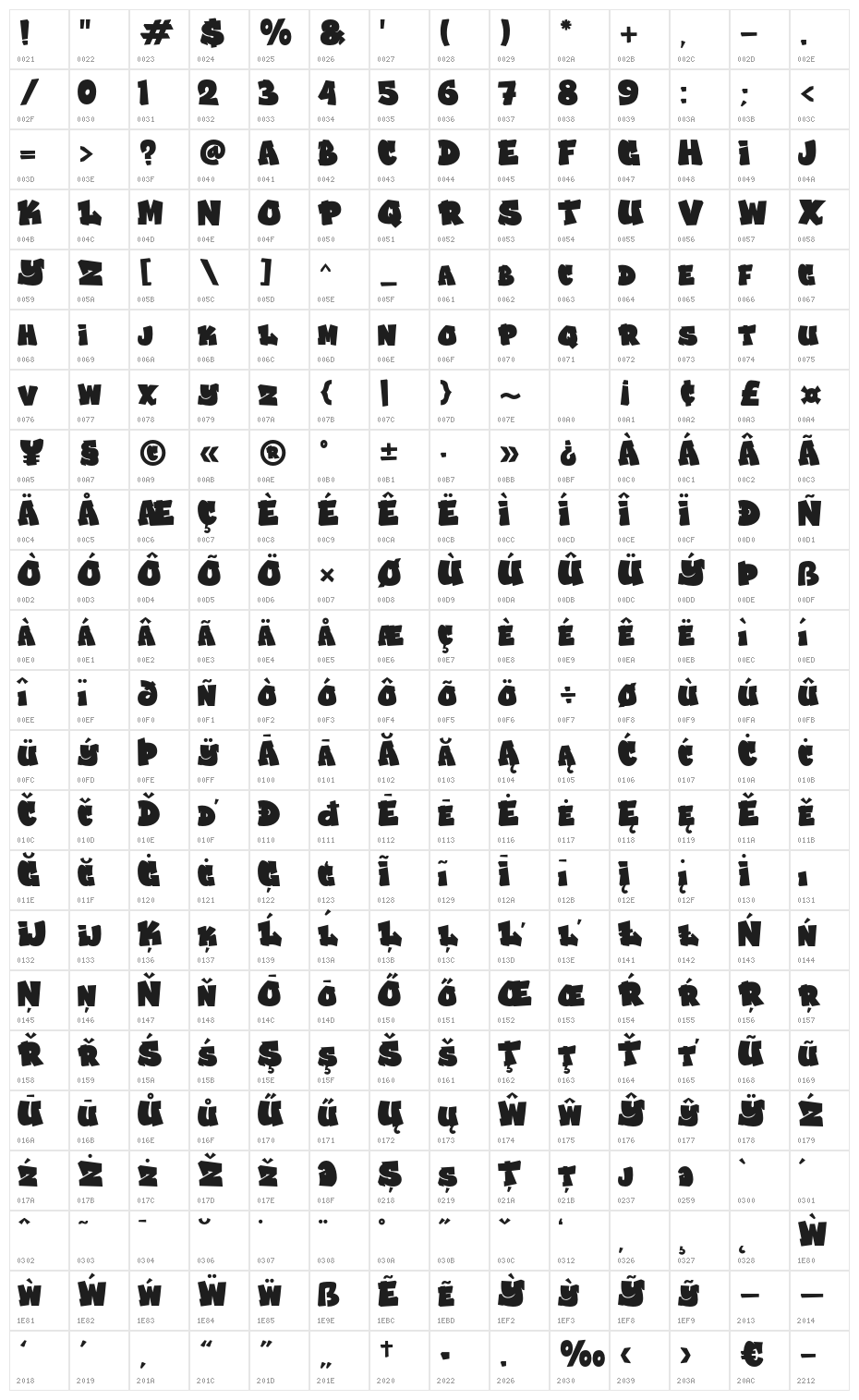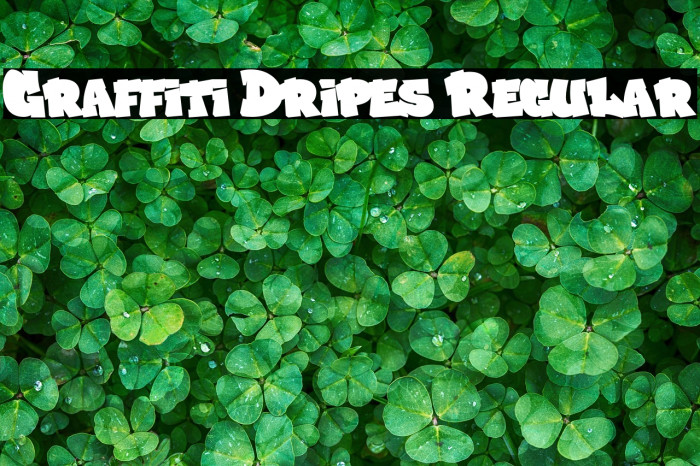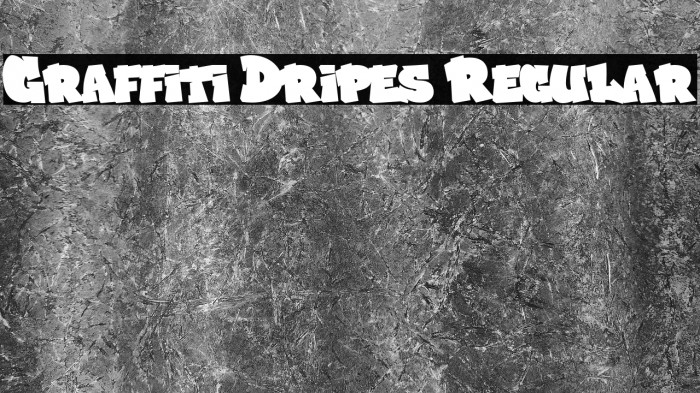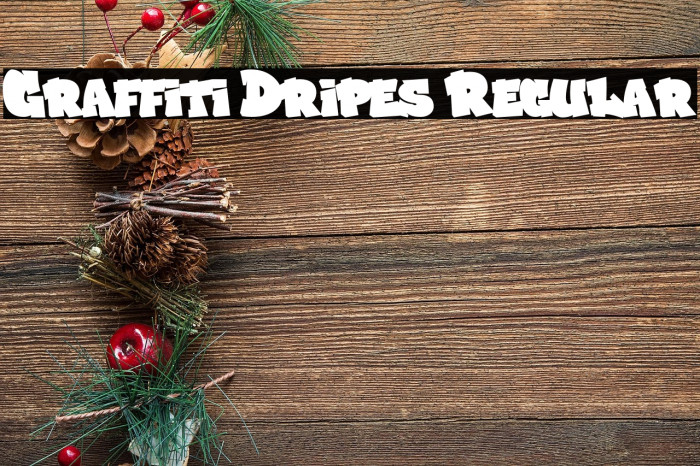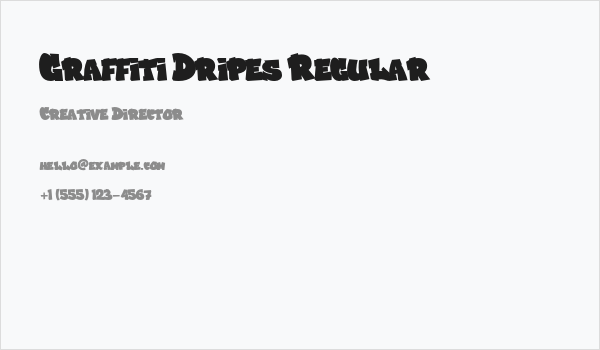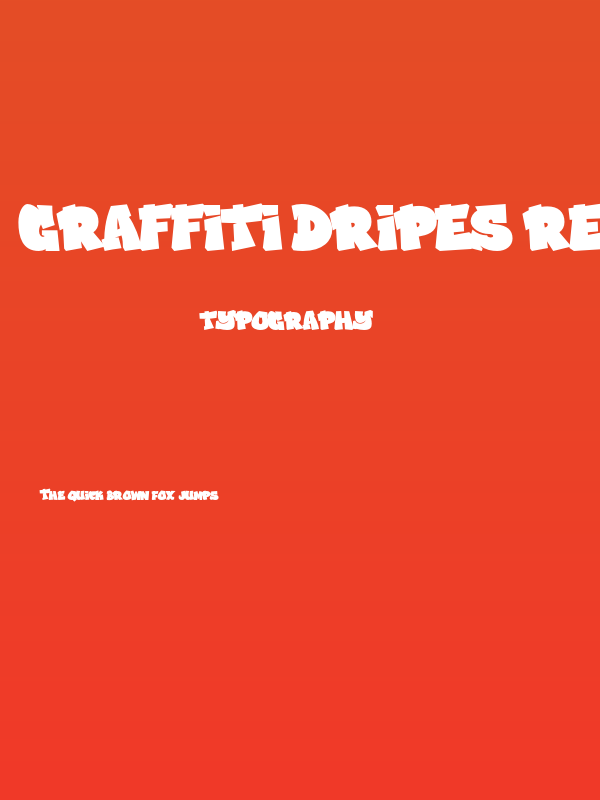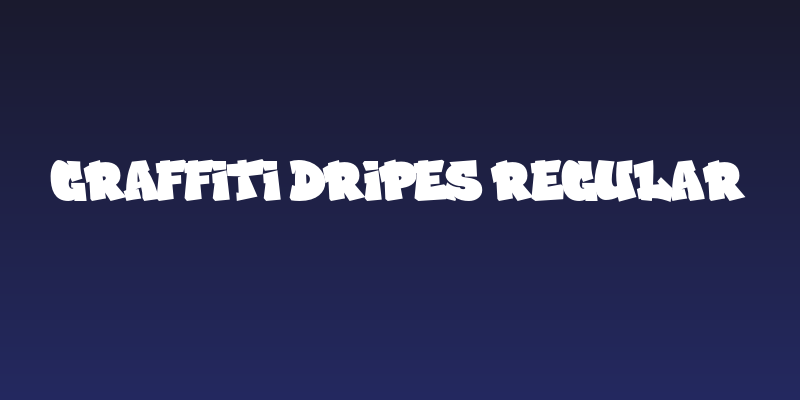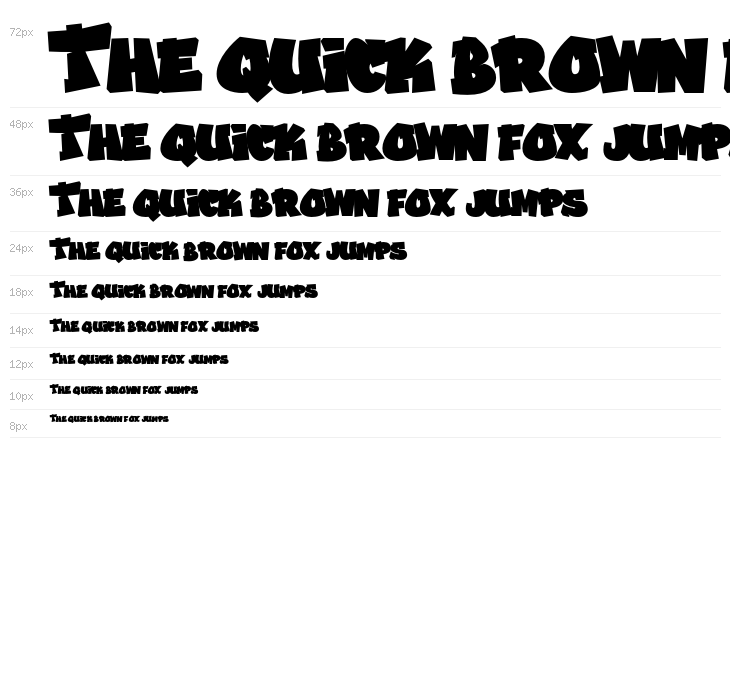
Graffiti Dripes Regular Font
Graffiti Dripes Regular Description
This font exudes a bold, urban vibe with its graffiti-inspired design. The letters are thick and chunky, featuring a playful, dripping effect that mimics spray paint. Each character is uniquely styled, giving the font an energetic and rebellious feel. The uppercase and lowercase letters maintain a consistent style, while the numbers and special characters complement the overall aesthetic. The font's boldness and distinctive style make it stand out, perfect for projects that require a strong visual impact.
Overall StyleUrban, Energetic, Rebellious
Proposed ProjectsIdeal for street art designs, urban-themed posters, music album covers, and edgy branding projects.